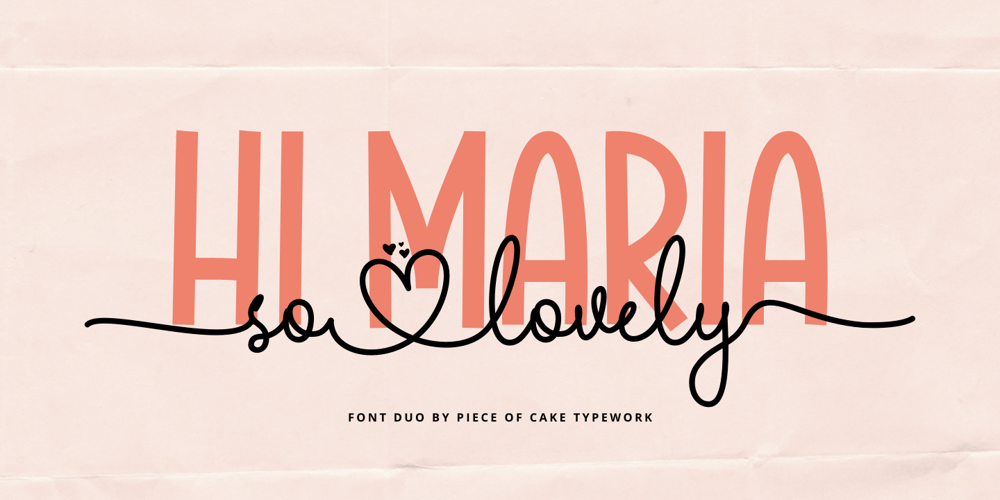
Hi Maria
Hi Maria font
Hi Maria Font Family was designed by Muh. Aswar, Andi Syahdang and published by Piece of Cake Typework. Hi Maria contains 2 styles and family package options. Hello World,Introducing, Hi Maria is a beauty script font suitable for your design project needs, such as; wedding themes, Christmas themes, social media posts, quotes, overlays on images, tagline logos, posters, print needs, website banners, and more.Features A set of uppercase and lowercase glyphs Number, symbol, and punctuation Multilingual Support Some Swashes and Ligatures So Easy to UseAccess Swashes by keyboard key parenleft ‘ ( ‘ to feature beginning swash 1 key bracketleft ‘ [ ‘ to feature beginning swash 2 key plus ‘ + ‘ to feature middle swash 1 key equal ‘ = ‘ to feature middle swash 2 key parenright ‘ ) ‘ to feature ending swash 1 key bracketright ‘ ] ‘ to feature ending swash 2 For Example: type [love+you]Thank you a million times for downloading and using this font for your projects. Enjoy this font and happy creating!